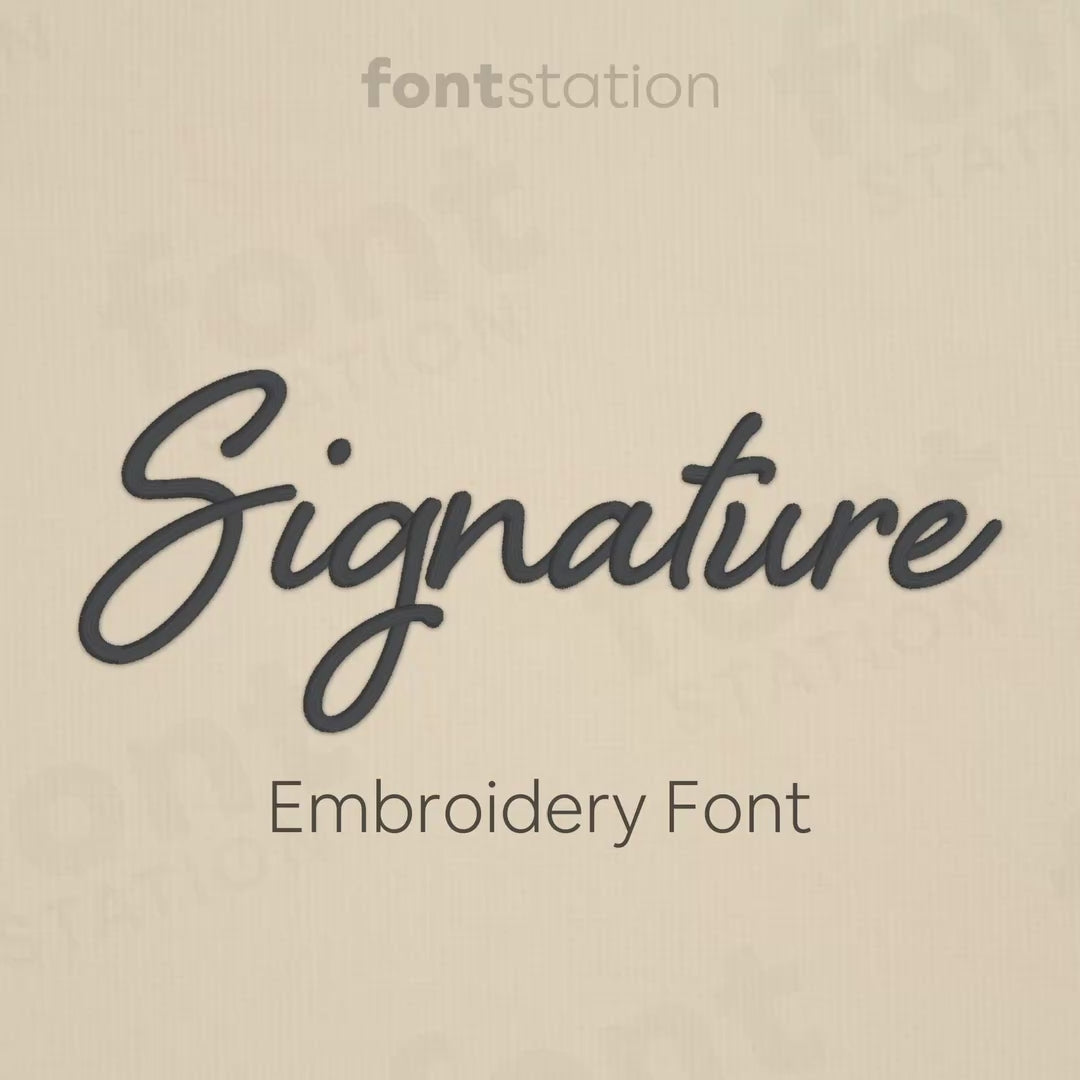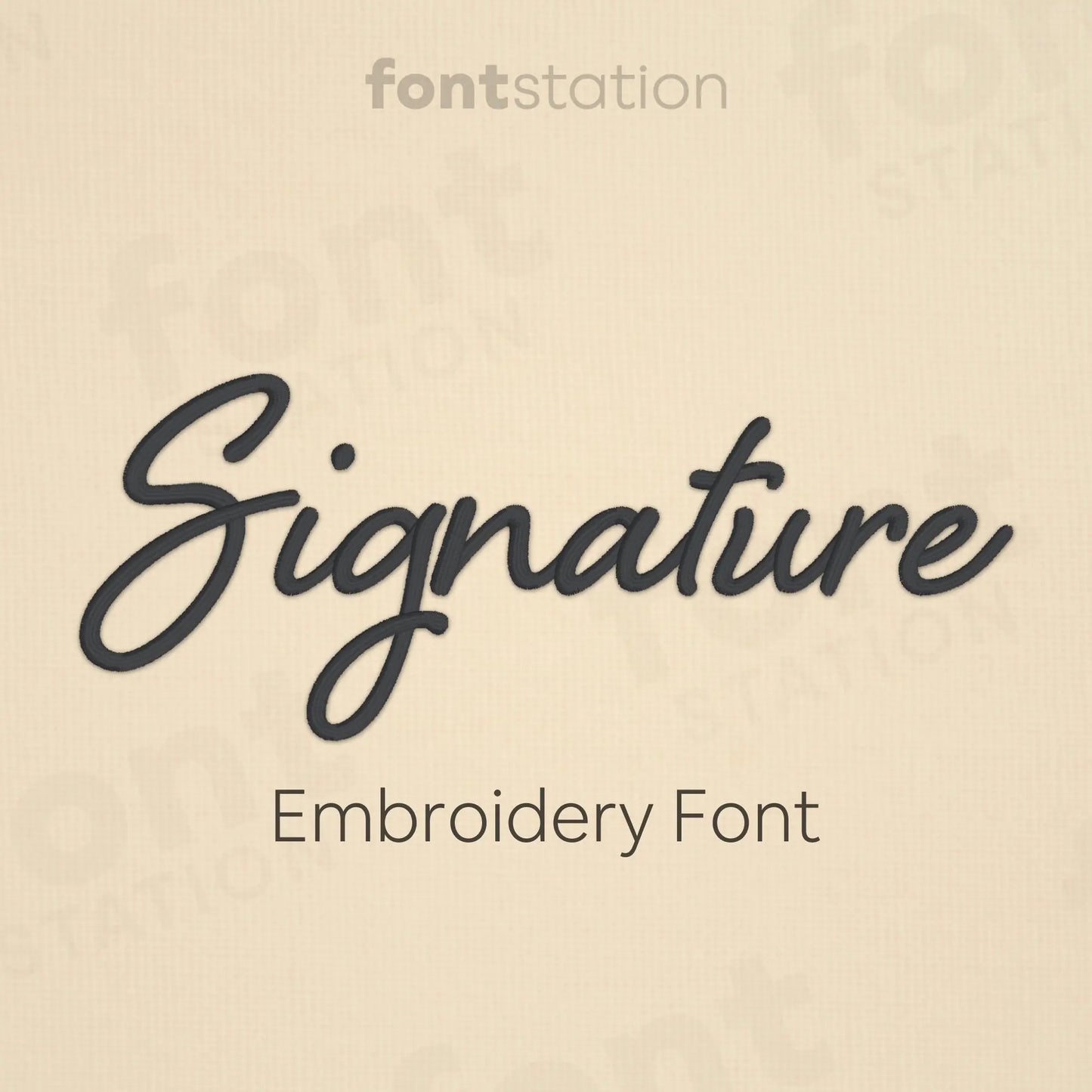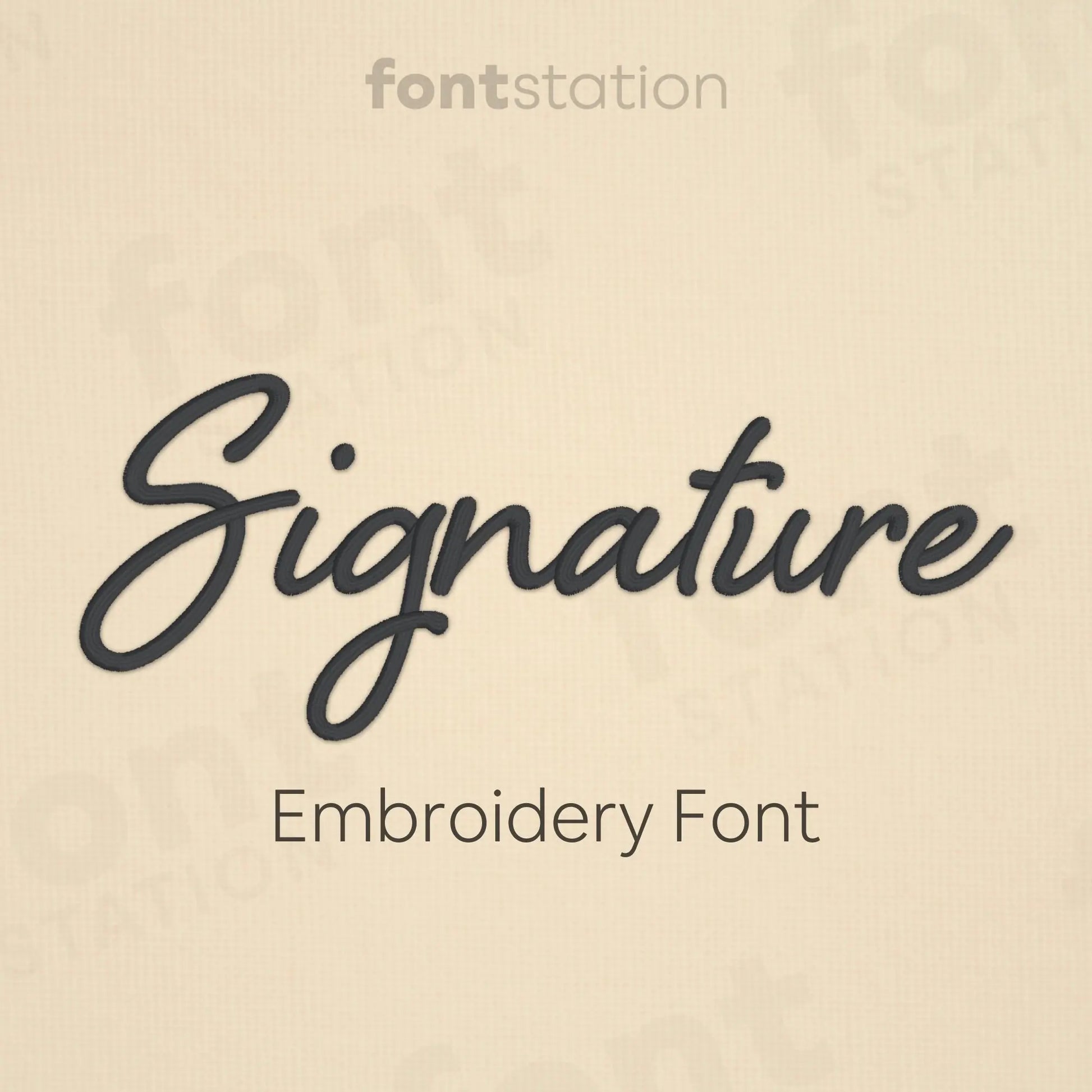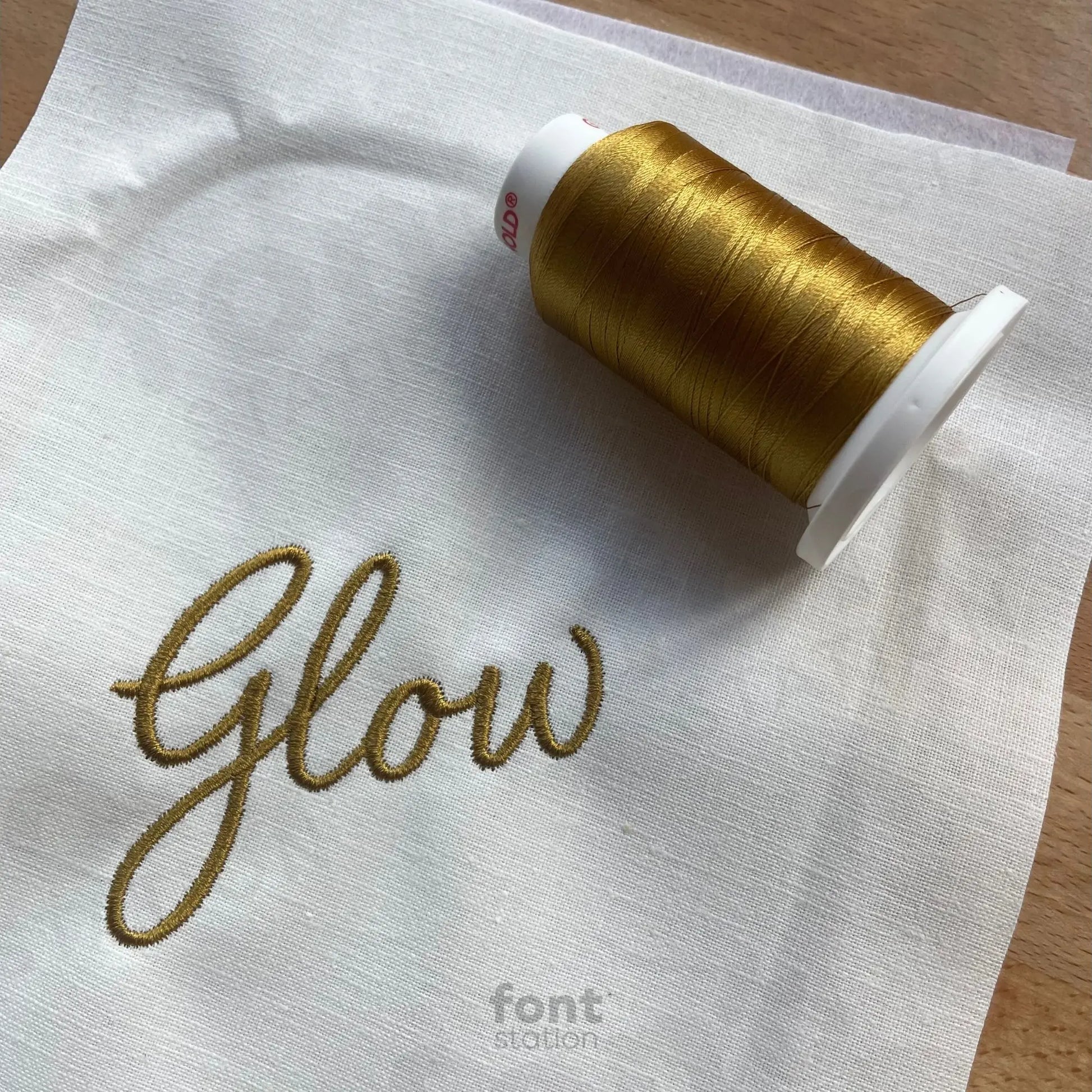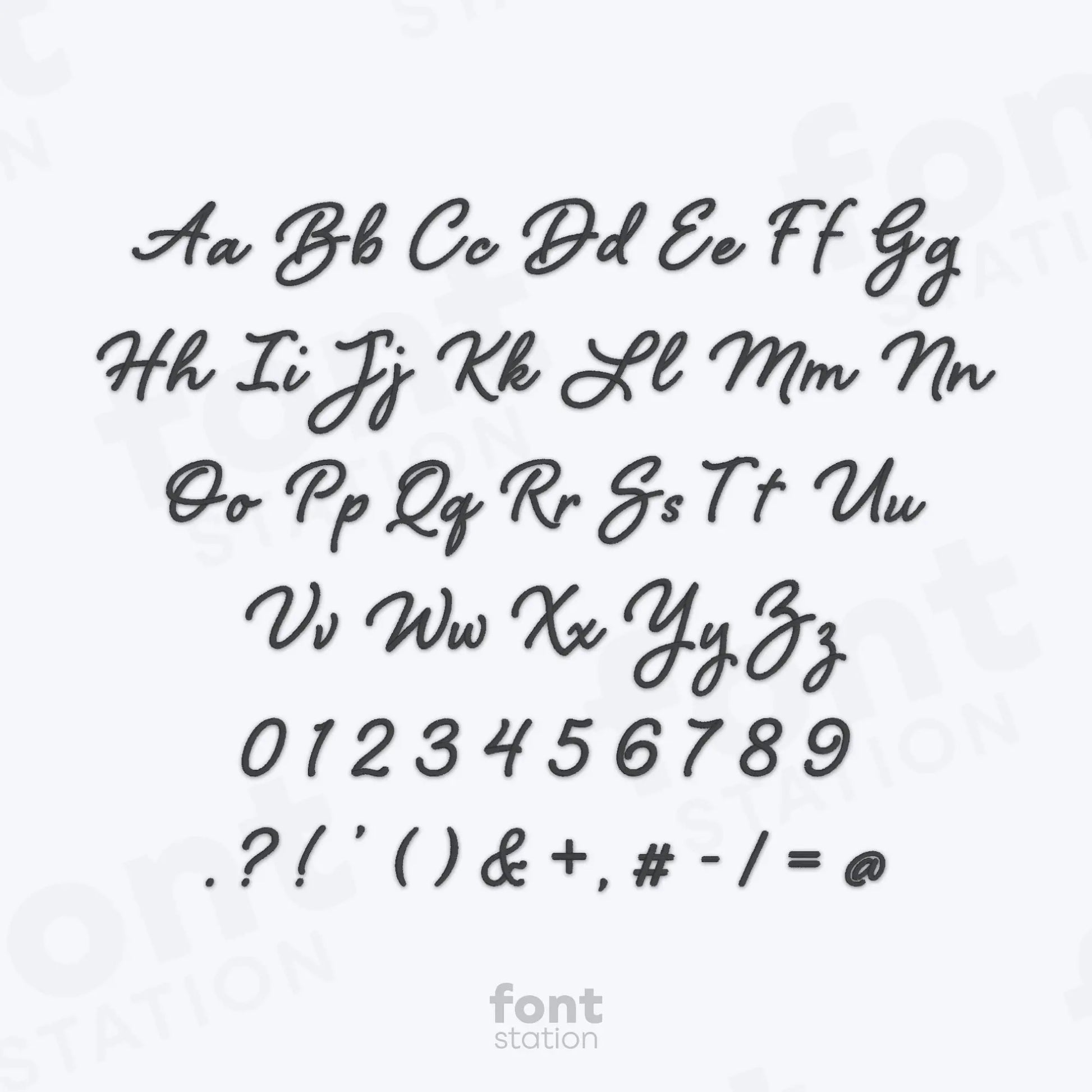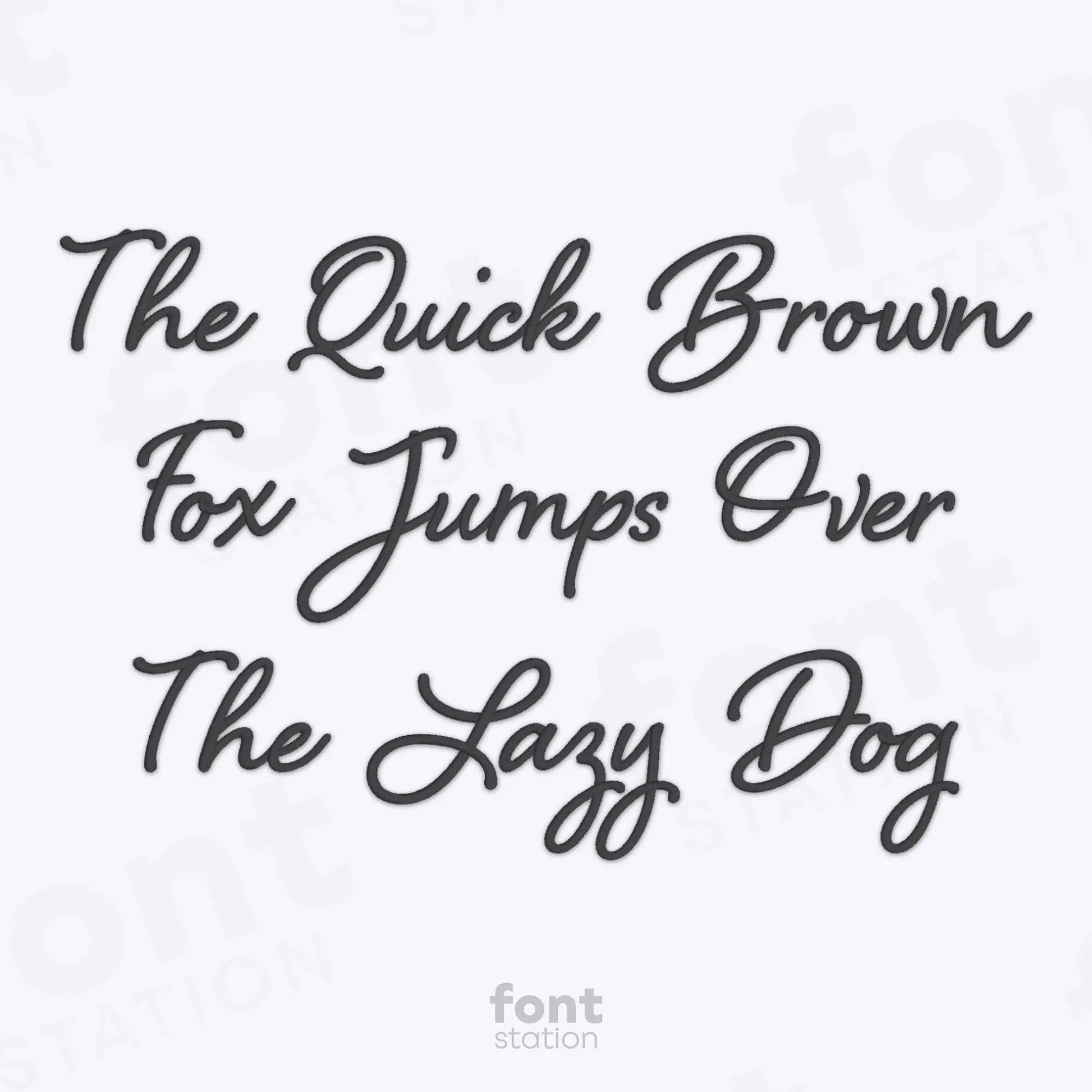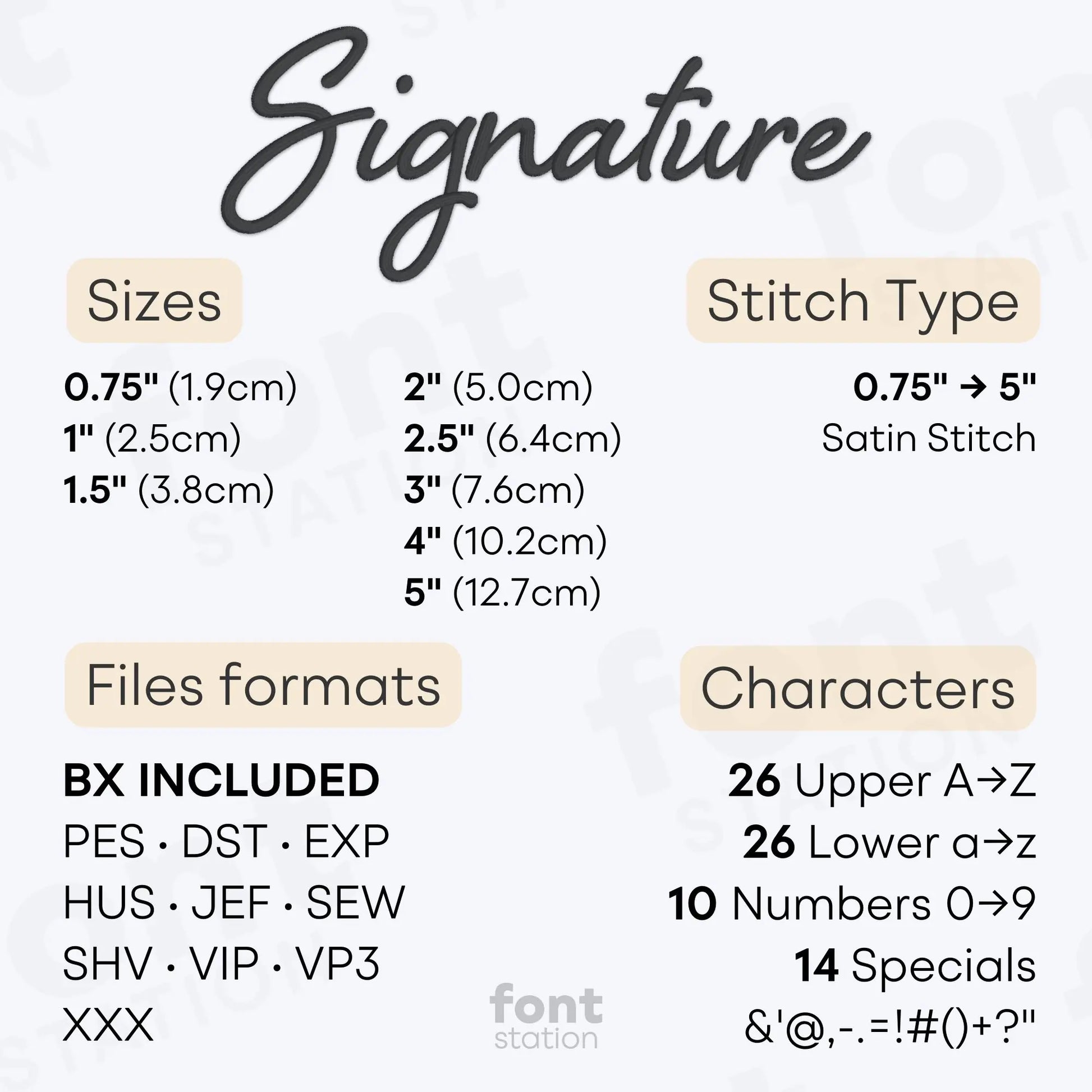
Signature Embroidery Font
Introducing our Signature embroidery font - a handwritten cursive alphabet ideal to stitch elegant letters onto any project. This font brings stylish designs to life, creating personalized embroidery letters that stitch flawlessly on your embroidery machine.
About the Signature Embroidery Font
Our Signature embroidery font brings a modern, handwritten flair to your embroidery designs.
The Signature embroidery font features a stylish cursive alphabet that mimics the natural flow of real handwriting, ideal for elegant names, quotes, labels, or branding projects. This handwritten embroidery font adds a personal touch to your designs with its smooth, flowing letters. Professionally digitized for crisp results, it includes formats like BX, PES, DST, JEF, EXP, VP3, HUS and more, and stitches beautifully on any embroidery machine. A versatile choice for creative, signature-style embroidery projects.